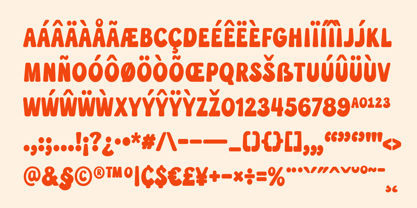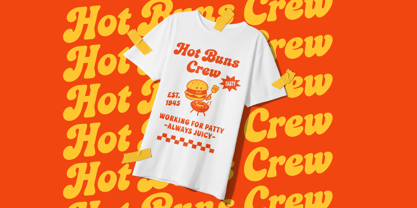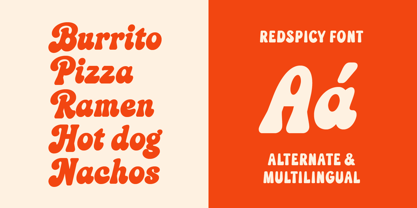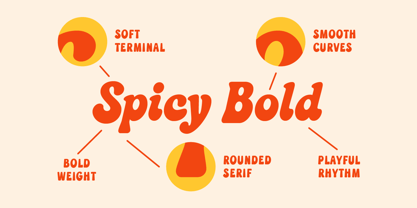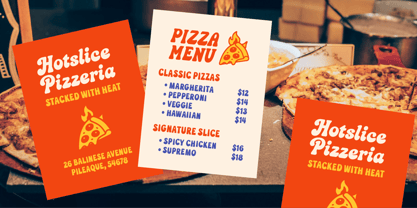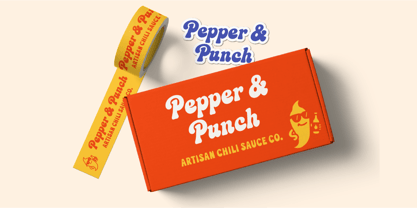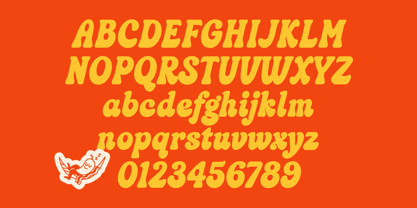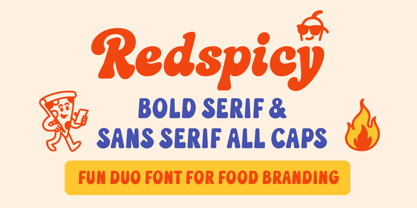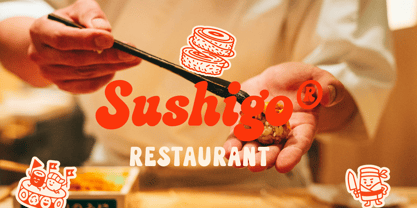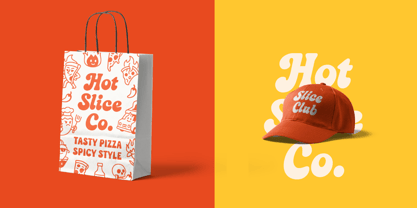
Redspicy
by Edignwn Type
The Redspicy Font Family was designed by Edi Gunawan and published by Edignwn Type. Redspicy contains 2 styles and family package options. More about this family
Redspicy is a bold and playful duo font made for food lovers and creative branding! Featuring a smooth serif and a clean sans serif, this font captures the energy of tasty visuals—from restaurant logos to spicy packaging. With rounded curves and a cheerful rhythm, Redspicy is the perfect ingredient for bold headlines, menu layouts, and merch that stands out.
Ideal for food restaurants, burger joints, ramen spots, or anything delicious—Redspicy adds flavor to every design.
Redspicy includes :
• 2 fonts (serif and sans serif)
• Uppercase, lowercase, numeral, symbol, punctuation and alternate (ss01) in serif font
• All-caps, numeral, symbol and punctuation in sans serif font
• Multilingual